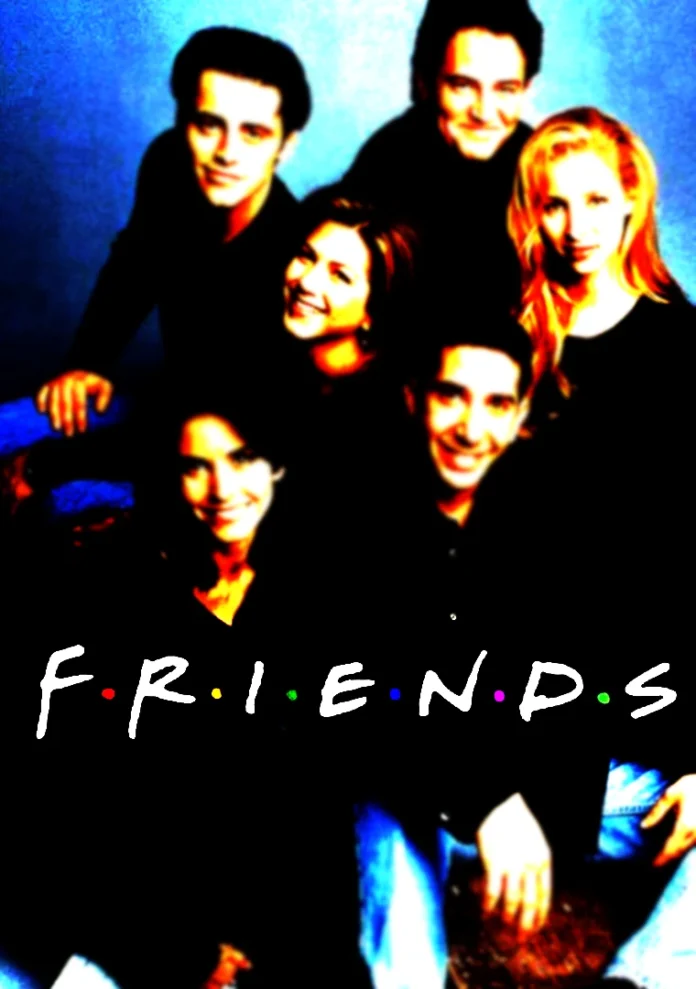
Friends Font
“Friends” is recognized as a cultural phenomenon that aired on NBC from 1994 to 2004. Created by David Crane and Marta Kauffman, the series follows six friends in their 20s and 30s living in Manhattan, New York City.
While the original Friends font was custom-made for the show and is not officially available, several designers have created fonts inspired by the logo.
Replica Fonts:
• Ends Font: Designed by Abu Hasnat, this font is described as sweet and friendly, capturing the essence of the original “Friends” logo font. It’s a paid font, but it is noted to be affordable.
• Gabriel Weiss’s Friends Font: This font is a creation by designer Gabriel Weiss, who took inspiration from the “Friends” logo to craft a similar typeface.
• Minus Cre Font: Created by Fred Cre, this handwritten typeface is noted for its unique style and can serve as another alternative for those looking to mimic the “Friends” logo aesthetic.
These fonts are not exact copies but are inspired by the logo’s style, offering fans and designers the opportunity to create work with a similar vibe to the beloved show.
Is this the exact font used for Friends?
Not exactly. The original lettering was custom drawn or is not publicly licensed, so the fonts here are close recreations. Ends is the nearest match we have found.